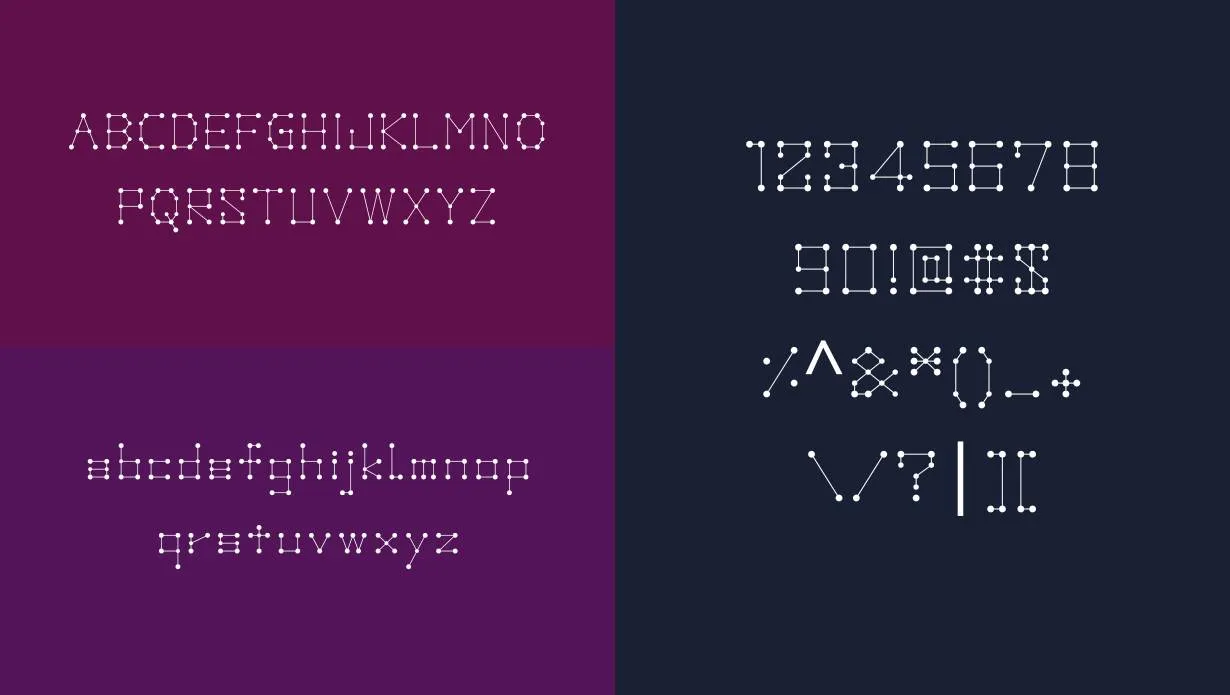
Constellation Font is commonly selected for creative branding, advertising, and projects where designers aim to make a unique and artistic visual impact.
The font’s expressive and intricate letterforms make it stand out and draw attention.
| Name | Constellation Font |
| Designer | Wino S Kadir |
This typeface family truly excels, especially when combined with a decorative font like kalam font, thanks to its extensive support for various foreign languages.